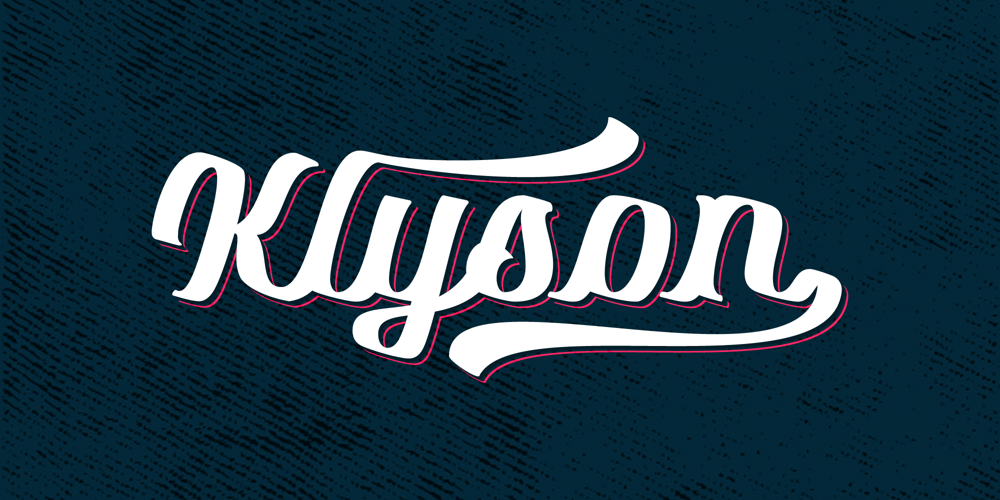
Klyson Font Family was designed by Angga Kristiandri and published by Abbasy Studio. Klyson contains 2 styles and family package options. Klyson Font Duo is a clean bold brush script and thin sans. This script font comes with multiple alternates that will make your words look more cool. With additional sans font you will be able to create the beautiful combination. Both of these font is great for Logos, Lettering, Clothing Design, Poster, Label, Quotes, etc.